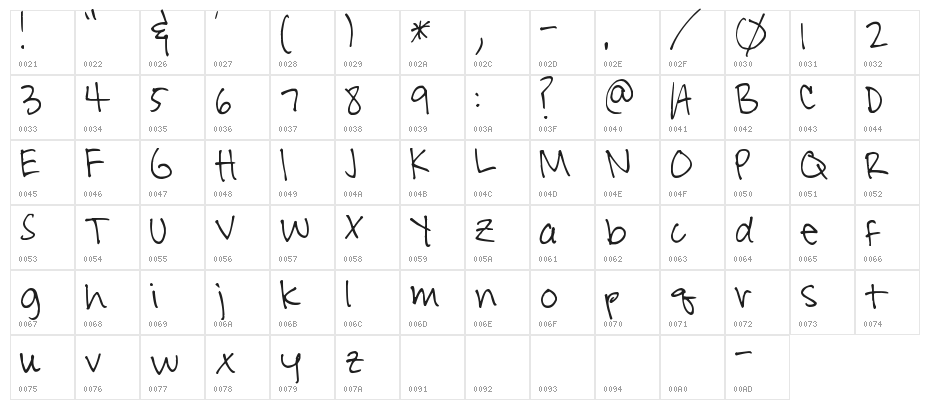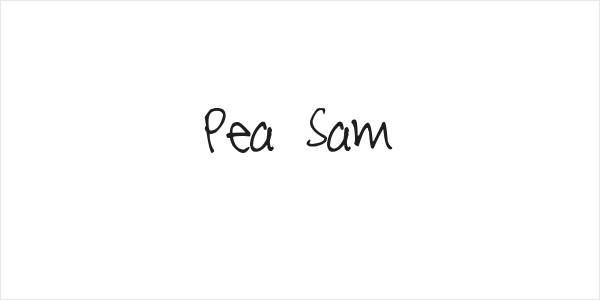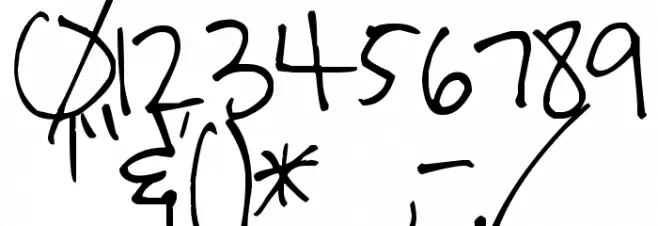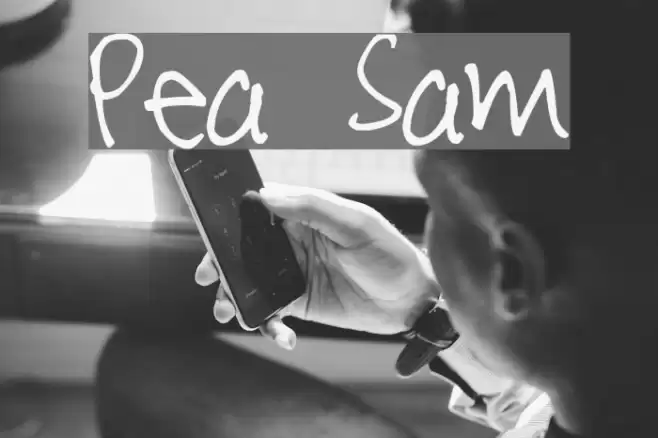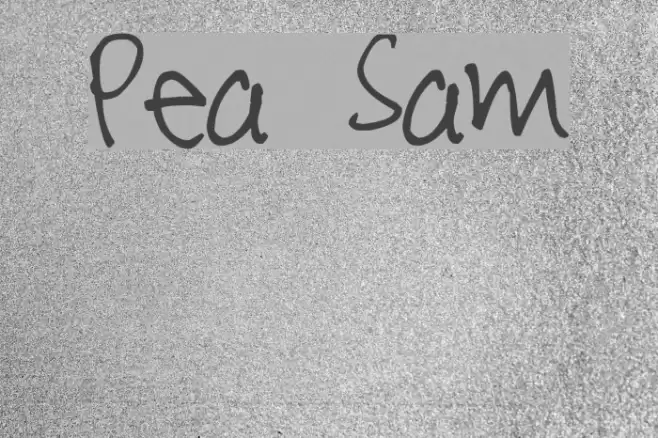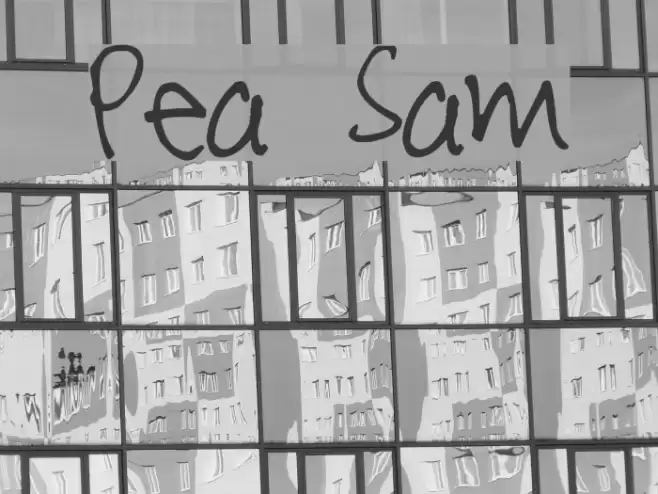
Pea Sam Font
Pea Sam Description
This font exudes a playful and casual handwritten style, characterized by its loose, flowing strokes and slightly irregular letterforms. The uppercase and lowercase letters maintain a consistent, informal appearance, giving off a friendly and approachable vibe. The numbers and special characters follow the same whimsical style, making it ideal for projects that require a personal touch. The overall design is reminiscent of a quick, yet legible handwriting, perfect for conveying warmth and creativity.
| Proposed Projects | Ideal for greeting cards, personal notes, children's books, and informal branding projects. |